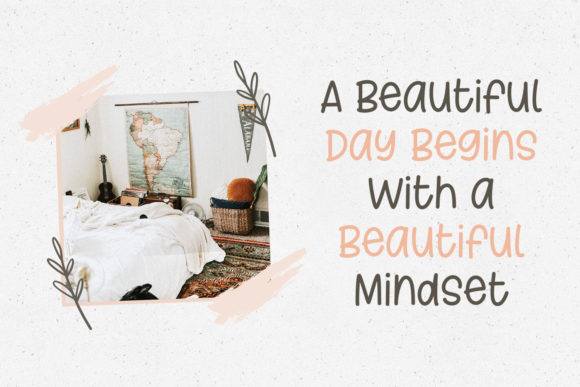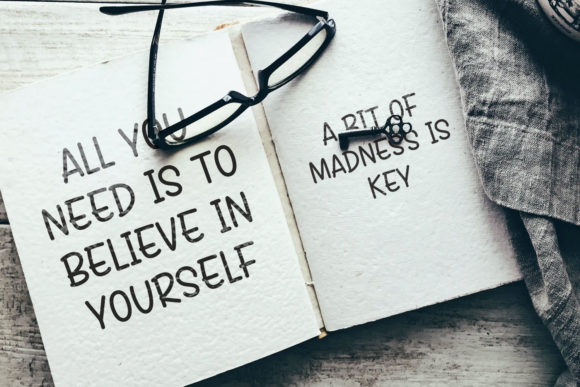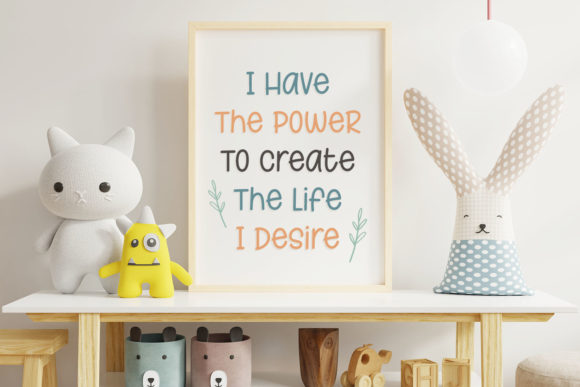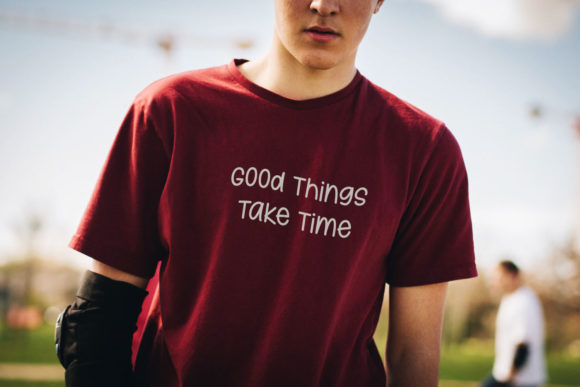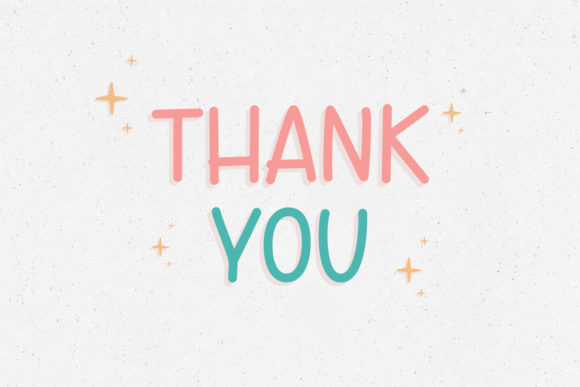
Introducing the Delightful Grace Sherina Font: Elevate Your Crafts with a Playful Touch
In the realm of typography, fonts play a pivotal role in conveying messages, evoking emotions, and adding personality to various crafts and designs. Among the myriad of fonts available, the Grace Sherina font stands out as a beacon of playfulness and uniqueness. This display font is not just a typeface; it’s an experience, a statement that can transform your crafts into eye-catching pieces that resonate with viewers. Whether you’re a designer looking to spice up your projects or a crafter aiming to add a personal touch to your creations, Grace Sherina is your go-to font.
The Essence of Grace Sherina Font
Grace Sherina is described as a playful and unique display font, and these characteristics are precisely what make it a standout in the world of typography. Its design is carefully crafted to infuse a fun touch into any project it’s applied to. The font’s playful nature makes it versatile, suitable for a wide range of applications, from creative crafts and DIY projects to professional design works. The uniqueness of Grace Sherina ensures that your work doesn’t go unnoticed; it grabs attention and leaves a lasting impression.
Endless Possibilities with Grace Sherina
The true beauty of the Grace Sherina font lies in its ability to unlock your imagination. The font serves as a creative catalyst, encouraging you to push boundaries and explore new ideas. With Grace Sherina, your imagination is indeed the limit. Here are a few ways you can incorporate this delightful font into your crafts:
- DIY Projects: Add a personalized touch to your DIY crafts, such as handmade cards, party decorations, and customized gifts. The playful vibe of Grace Sherina will make your creations more appealing and unique.
- Graphic Design: For designers, Grace Sherina can be a valuable asset in your typography arsenal. Use it in logo designs, posters, and social media graphics to add a fun and modern touch.
- Crafting Communities: If you’re part of crafting communities or online forums, using Grace Sherina in your project showcases can help your work stand out and attract more attention.
Why Choose Grace Sherina Font?
Choosing the right font for your project can be daunting, given the numerous options available. However, Grace Sherina offers several advantages that make it a preferred choice for many:
- Playfulness: It adds a fun element to your designs, making them more engaging.
- Versatility: Suitable for various projects, from digital designs to print materials.
- Uniqueness: Helps your work stand out in a crowded creative landscape.
- Easy to Read: Despite its playful nature, Grace Sherina remains clear and readable, making it perfect for display texts.
Tips for Using Grace Sherina Effectively
To maximize the impact of the Grace Sherina font in your projects, consider the following tips:
- Pair with Complementary Fonts: Combine Grace Sherina with simpler fonts for body text to create a balanced design.
- Experiment with Colors: Don’t be afraid to play with different colors to enhance the playful nature of the font.
- Consider the Context: Ensure that the font aligns with the message and tone of your project.
The Grace Sherina font is more than just a typeface; it’s a tool for creativity, a means to add a playful and unique touch to your crafts and designs. Its versatility, combined with its ability to grab attention, makes it an invaluable resource for designers and crafters alike. With Grace Sherina, the possibilities are endless, and your imagination is the only limit. So, dive into the world of Grace Sherina and discover how this delightful font can elevate your creative projects to new heights.